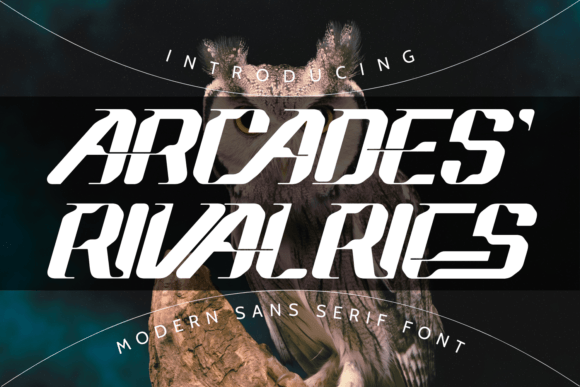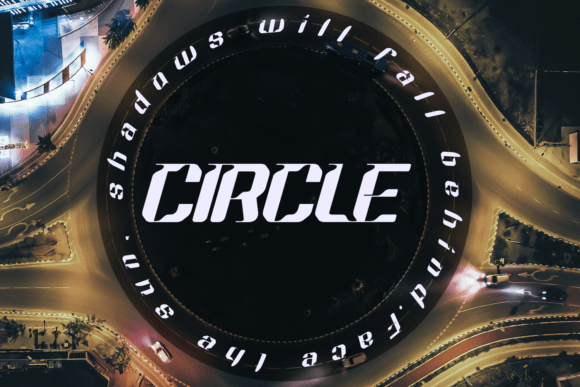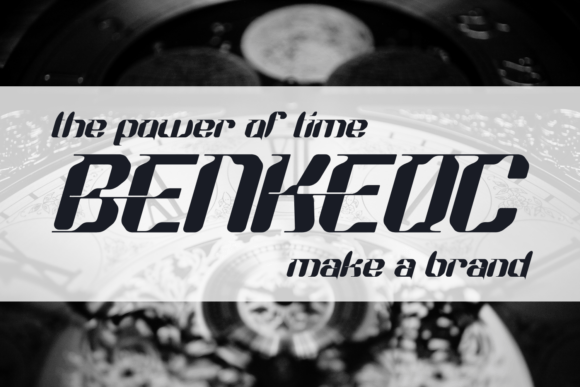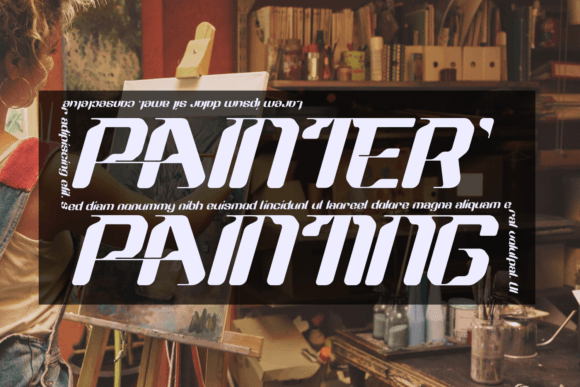
Arcades Rivalries Font
About the Arcades Rivalries Font
Meet Arcades Rivalries Font, a stunning font that brings a touch of elegance and professionalism to any design. Arcades Rivalries – Futuristic Sci-Fi Font. It’s a hi-tech logo inspired font with unique and futuristic looks. With sans based, this font also including ligatures that you can use for more options for your logo project. You can use this font for logo, movie poster, and futuristic event, game / gaming industry, sport racing, super car brand, esport branding, music poster, website design, modern advertising design, poster quote, book/cover title, special events and many more.
Arcades Rivalries excels in headline applications, short impactful statements, and branding projects requiring a bold, futuristic aesthetic. Its strong geometric forms are ideal for logos, posters, and packaging for tech companies, gaming brands, or sports-related products. However, its condensed forms and unique letterforms make it less suitable for body copy or extended text. Small sizes may also lose legibility.
Consider pairing Arcades Rivalries with a clean sans-serif like Open Sans for body text to balance its strong personality, or a more playful script font such as Pacifico for a contrasting yet complementary feel in branding applications. For a more serious tone, a classic serif like Garamond could provide a sophisticated counterpoint.
The font’s overall personality is aggressive and dynamic, conveying speed, power, and technological advancement. It’s best suited for brands projecting innovation and a forward-thinking image.
Arcades Rivalries Font Usage Examples
Arcades Rivalries Font Example